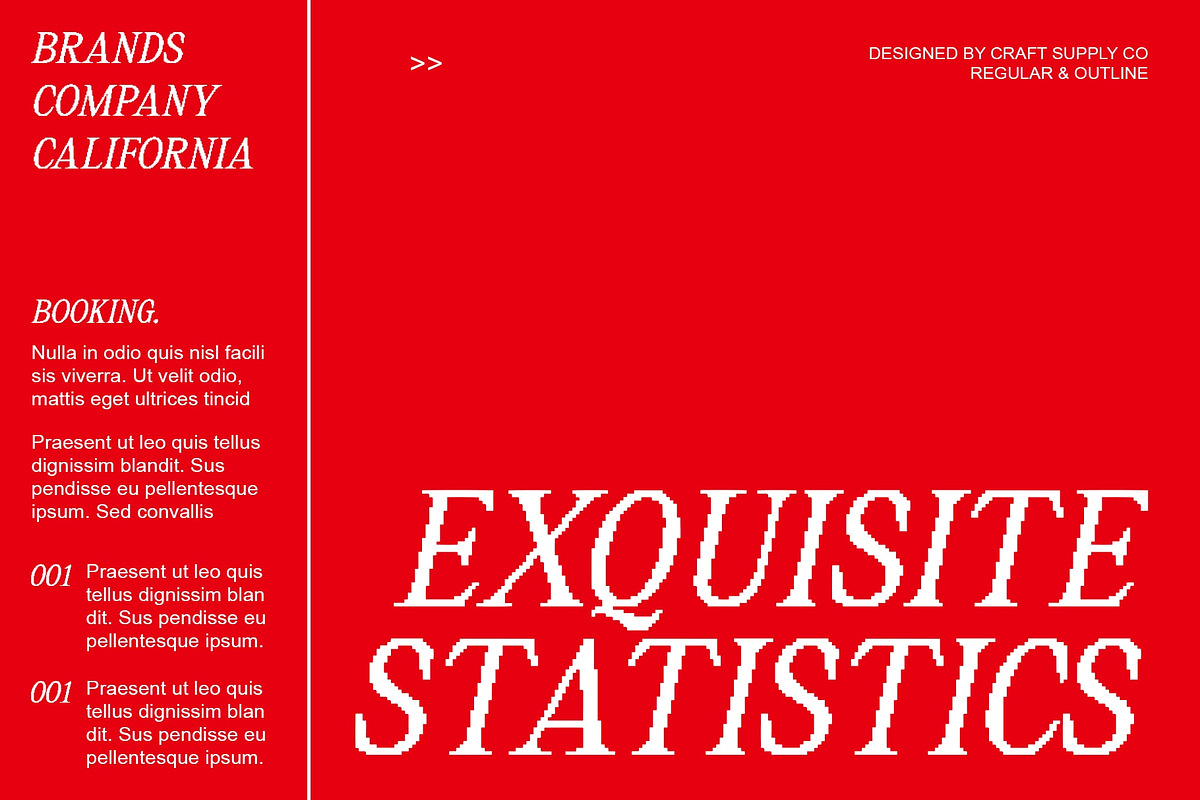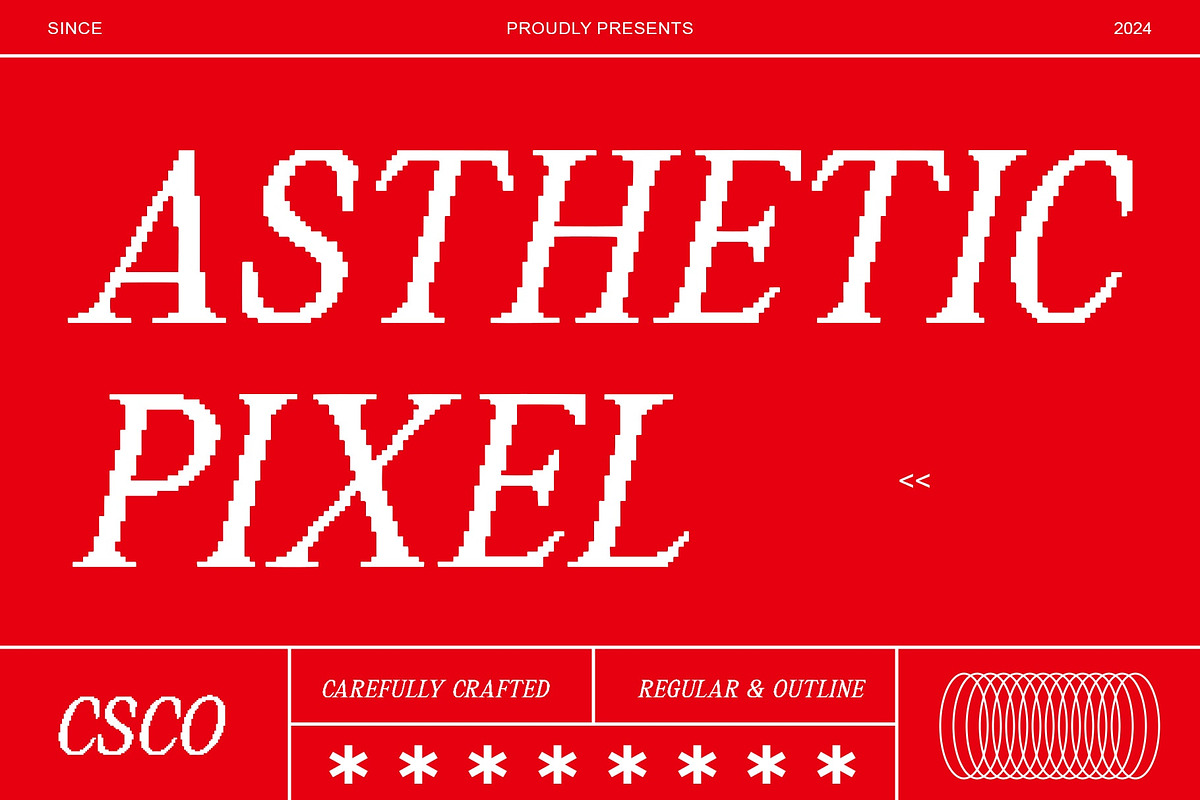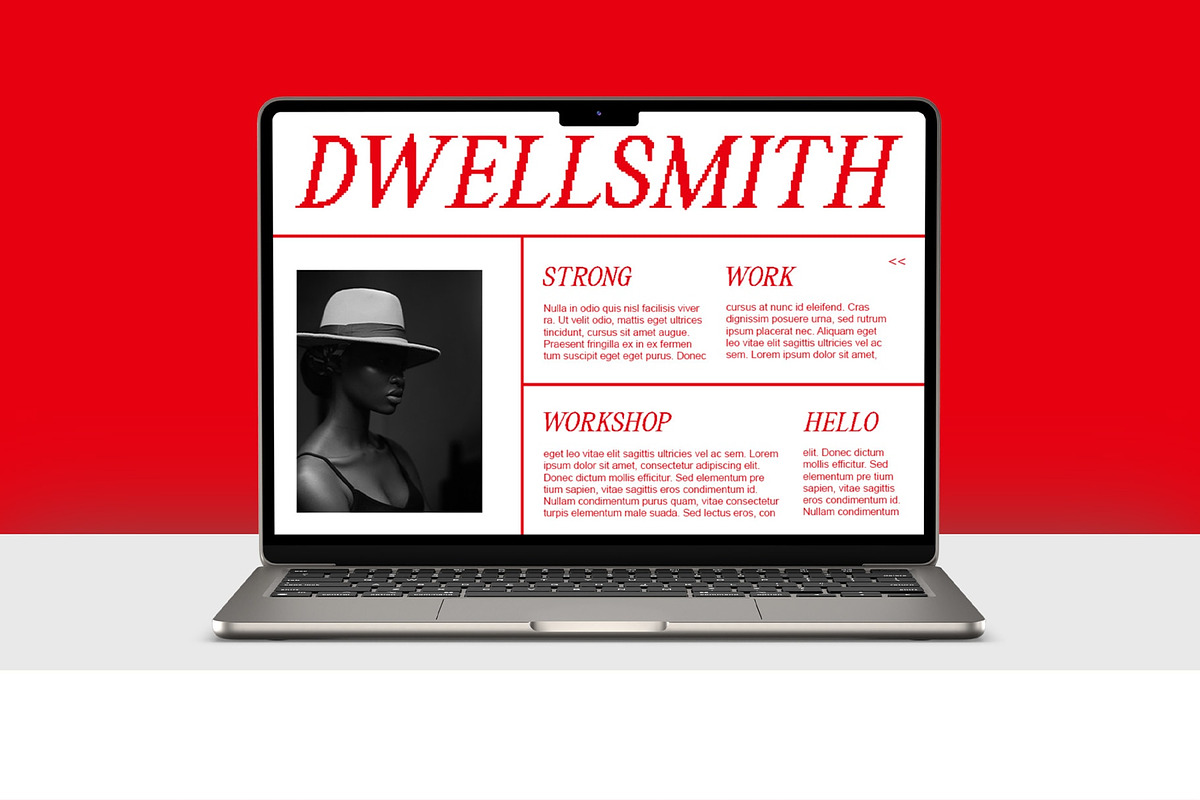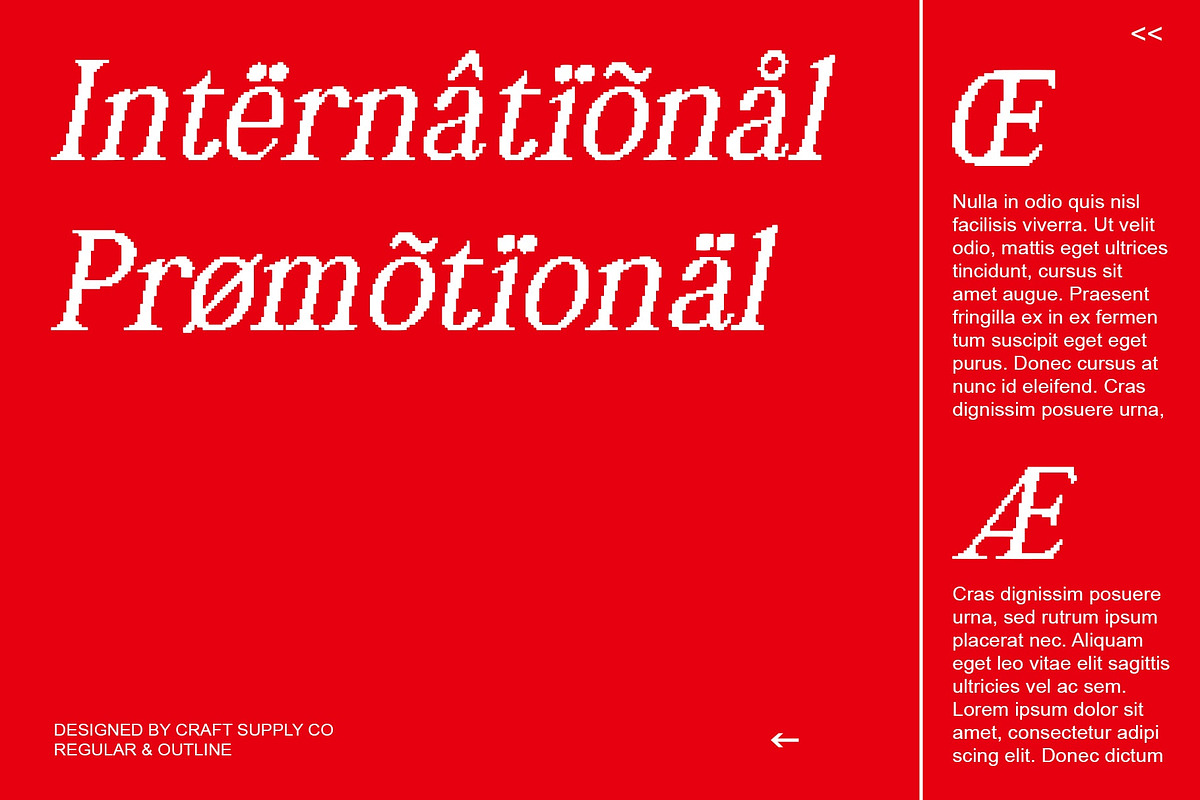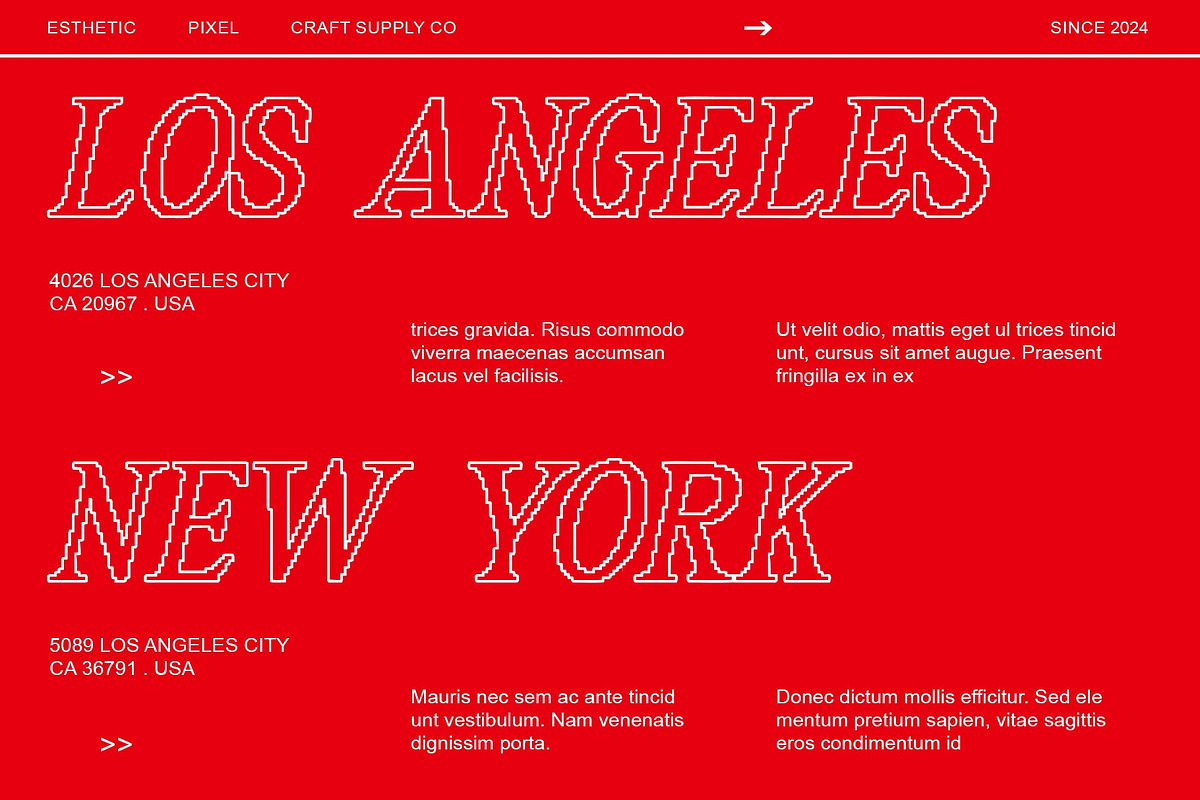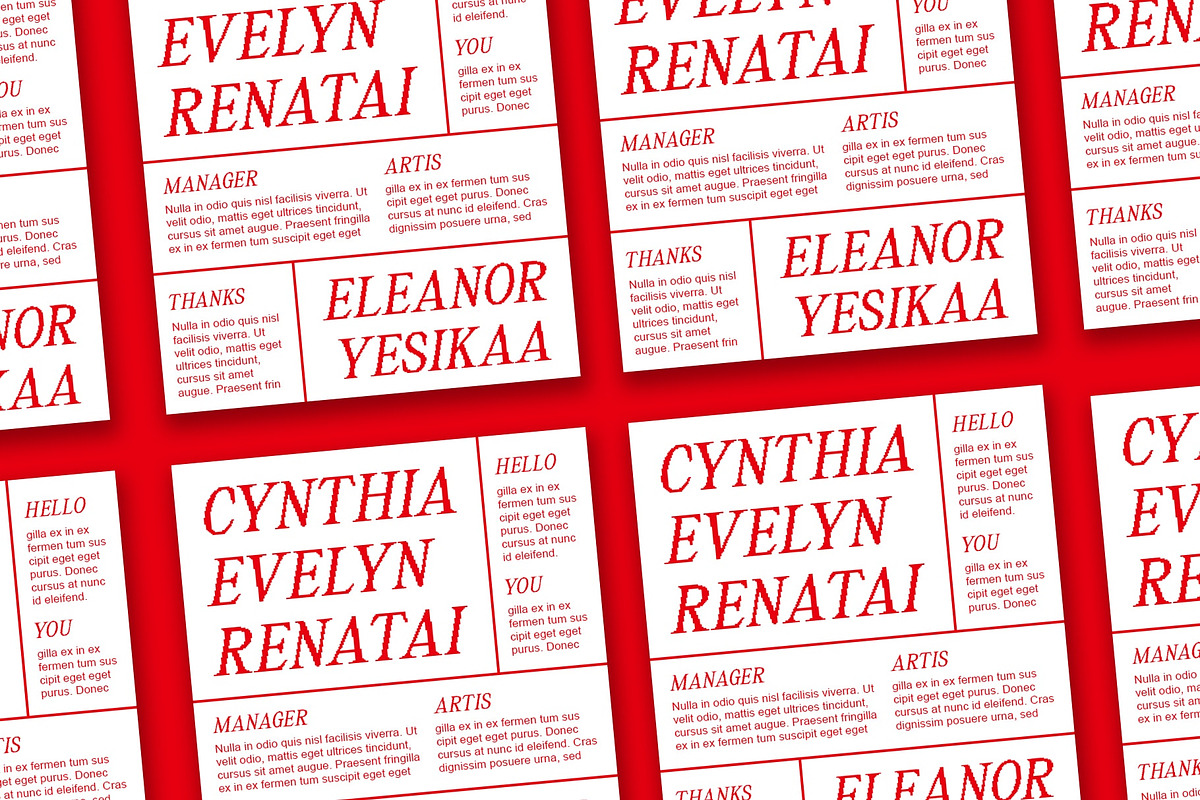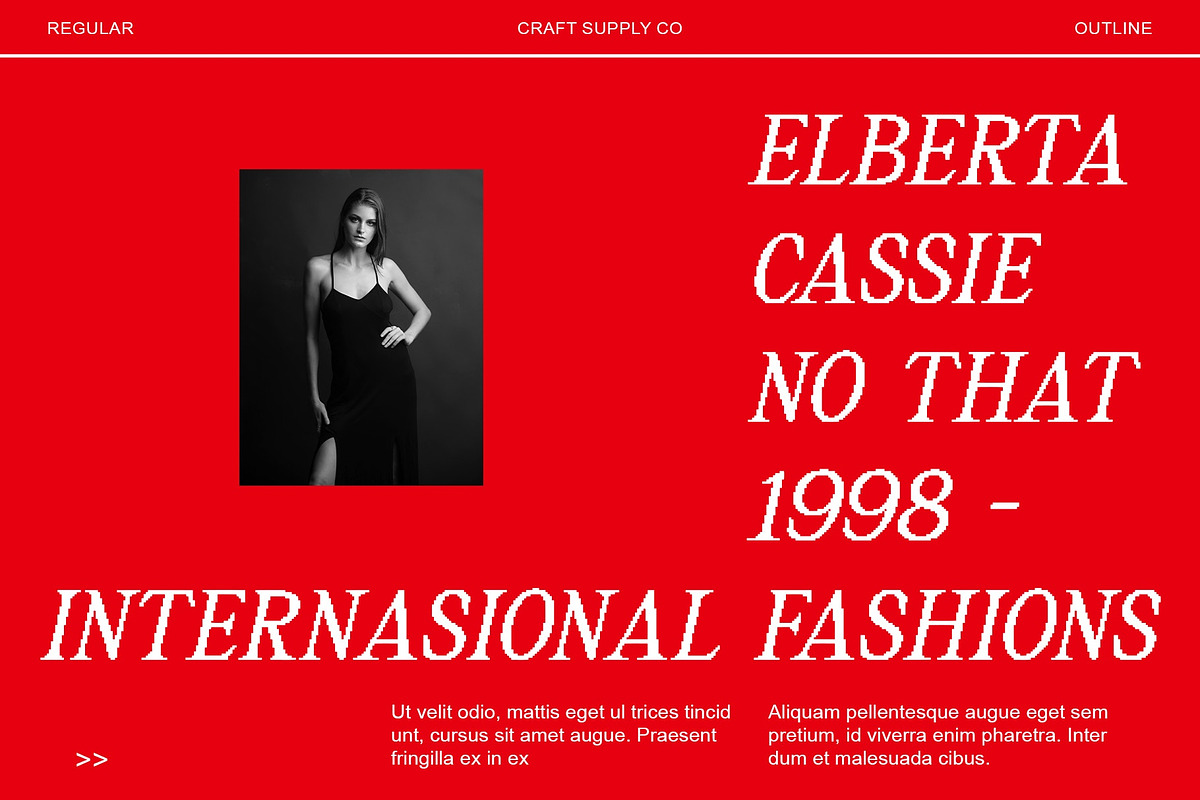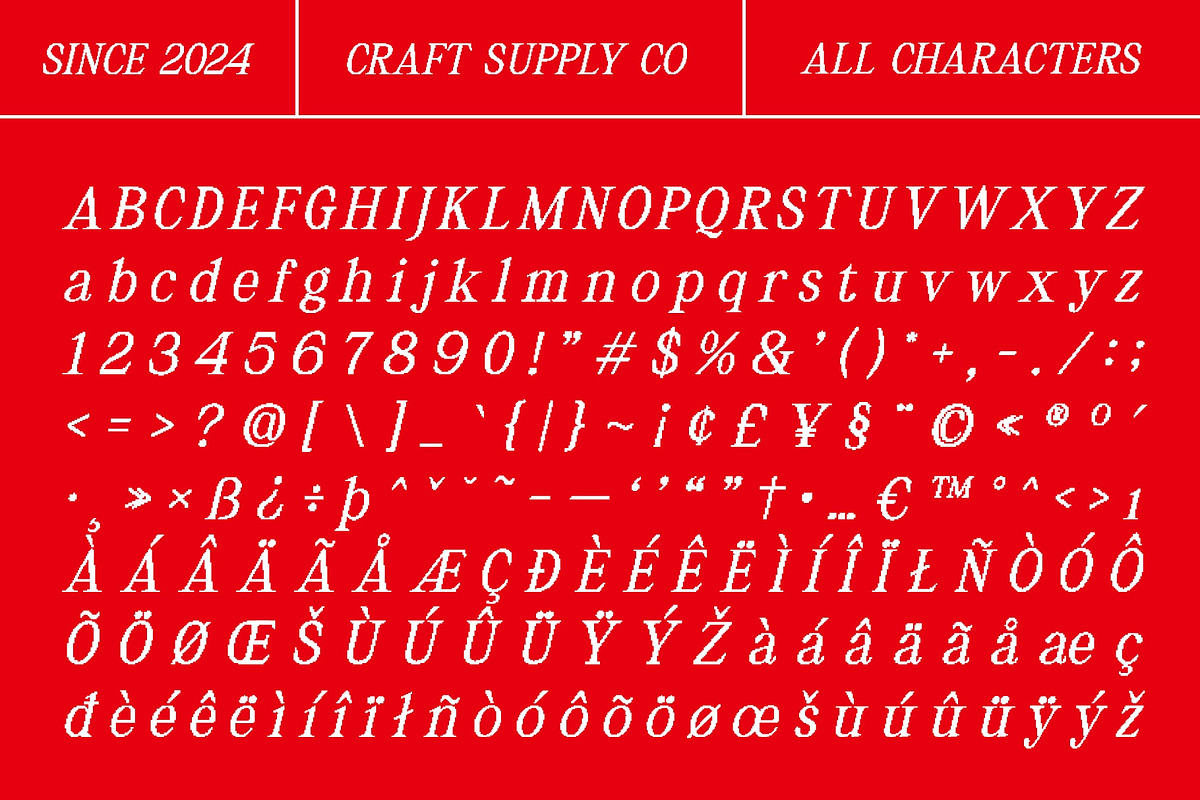
Asthetic Pixel
Asthetic Pixel: Where Modernity Meets Pixel Charm
Modern Serif with a Pixel Vibe
Asthetic Pixel is a modern serif font that captures the essence of pixel charm. Its unique design combines the elegance of a serif typeface with the quirky appeal of pixel art, making it perfect for eye-catching displays and creative projects.
Perfect for Display
Designed with display in mind, Asthetic Pixel is ideal for use in headlines, banners, and other large-scale applications. Its pixelated details add a playful touch to any design, ensuring that your message stands out with style.
Versatile and Contemporary
Despite its pixelated appearance, Asthetic Pixel is a versatile font that works well in a variety of design settings. Whether used for digital interfaces or print materials, its modern serif style adds a touch of sophistication to any project.
Add a Touch of Pixel Charm
Elevate your designs with Asthetic Pixel, where modernity meets pixel charm. Its unique aesthetic is sure to capture attention and add a playful twist to your creative work.